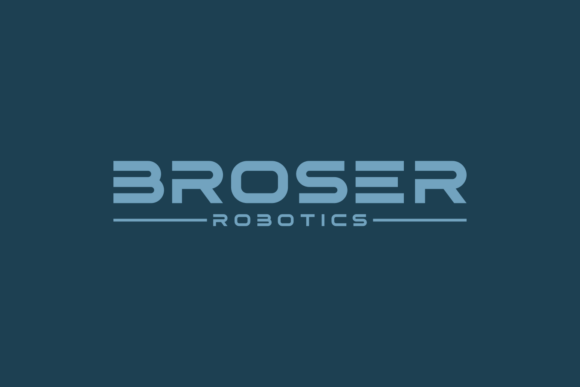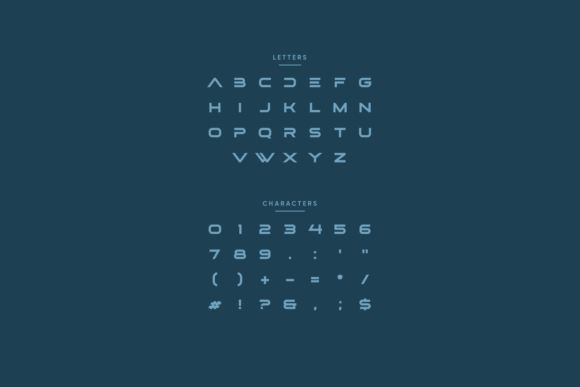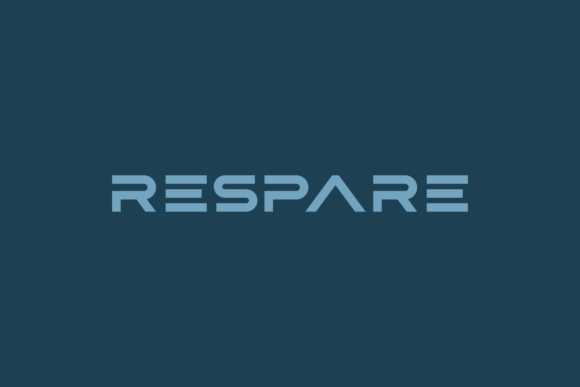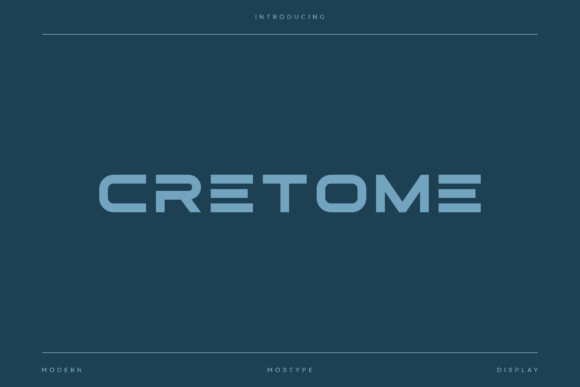
Introducing Cretome Font: The Ultimate Modern Display Typeface
In the world of typography, a new font has emerged that is taking the design community by storm. Meet Cretome, a unique, minimal, and modern display typeface that is redefining the way we think about typography. Designed specifically for display and branding purposes, Cretome is the perfect choice for creating stunning logotypes, branding materials, headlines, digital ads, and marketing materials for both web and print.
The Birth of a New Typeface
Cretome is more than just a font – it’s a statement. Its clean and minimalist design makes it an instant attention-grabber, perfect for designers and crafters looking to make a bold statement. Whether you’re working on a logo, a headline, or a marketing campaign, Cretome is the ideal choice for those who want to create a lasting impression.
Key Features of Cretome Font
• Unique and Modern Design: Cretome boasts a one-of-a-kind design that is both modern and sleek. Its unique features make it stand out from other fonts, ensuring your designs will never go unnoticed.
• Minimalist Approach: The minimalist approach of Cretome makes it versatile and easy to use. Its simplicity allows it to adapt to various design contexts, from digital platforms to print materials.
• Highly Legible: Despite its minimalist design, Cretome remains highly legible, even at smaller sizes. This makes it perfect for use in a variety of applications, from headlines to body text.
• Extensive Language Support: Cretome supports a wide range of languages, making it a great choice for global brands and designers who work with clients from diverse linguistic backgrounds.
Use Cases for Cretome Font
Cretome is a versatile font that can be used in a variety of contexts. Here are some of the most popular use cases:
• Logotype and Branding: Create a lasting impression with Cretome as your logotype or branding font. Its unique design ensures your brand stands out.
• Headlines and Titles: Use Cretome to create eye-catching headlines and titles for your marketing materials, website, or print publications.
• Digital Ads: Make your digital ads pop with Cretome. Its modern design and high legibility ensure your message gets across effectively.
• Marketing Materials: From brochures to billboards, Cretome is the perfect choice for creating stunning marketing materials that capture attention.
Why Choose Cretome Font?
• Uniqueness: Cretome offers a fresh and unique design that sets it apart from other fonts.
• Versatility: Its minimalist approach makes Cretome adaptable to various design contexts.
• Legibility: Cretome remains highly legible, even at smaller sizes, making it perfect for a range of applications.
• Support: With extensive language support, Cretome is an excellent choice for global brands and designers.
In conclusion, Cretome is a game-changer in the world of typography. Its unique, minimal, and modern design makes it the perfect choice for designers and crafters looking to create stunning display and branding materials. With its high legibility, extensive language support, and versatility, Cretome is an excellent addition to any designer’s toolkit. So why wait? Discover the power of Cretome and take your designs to the next level.